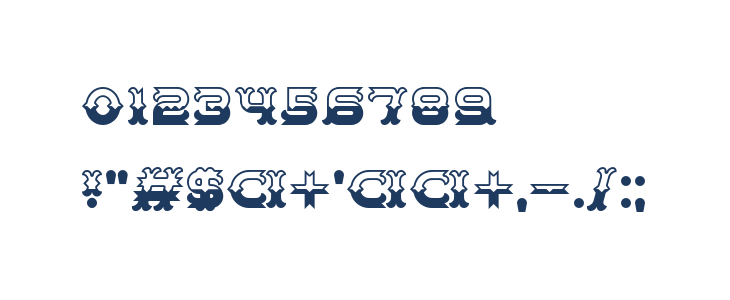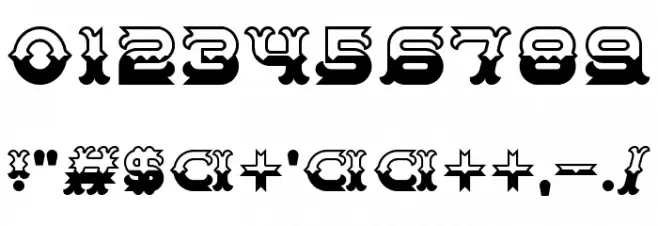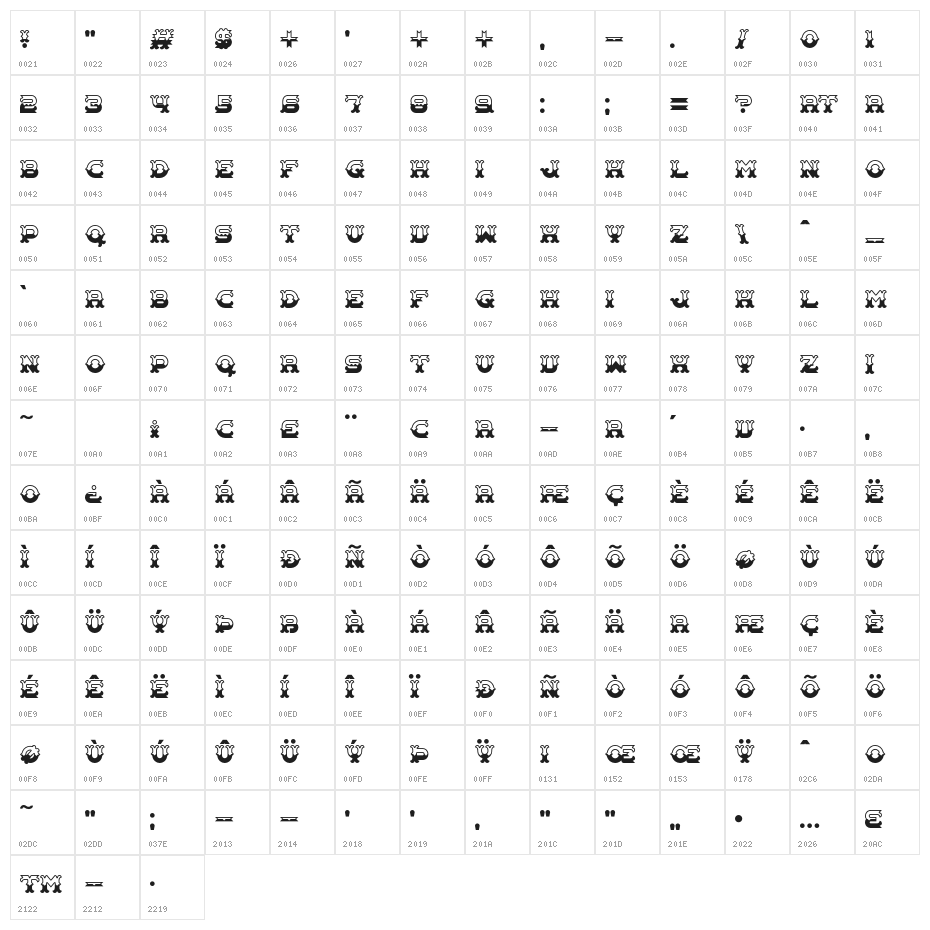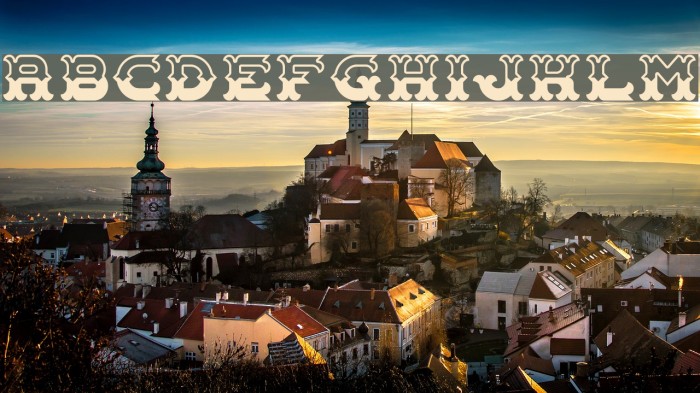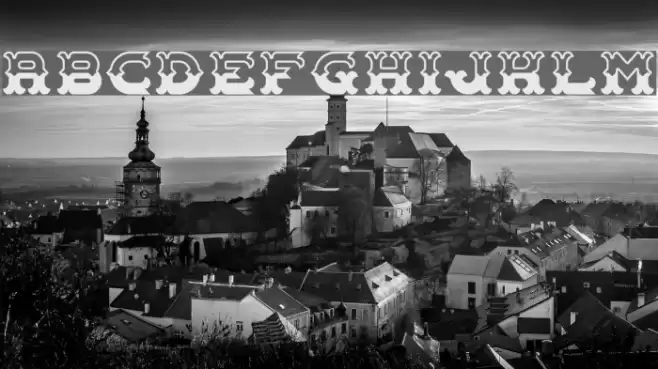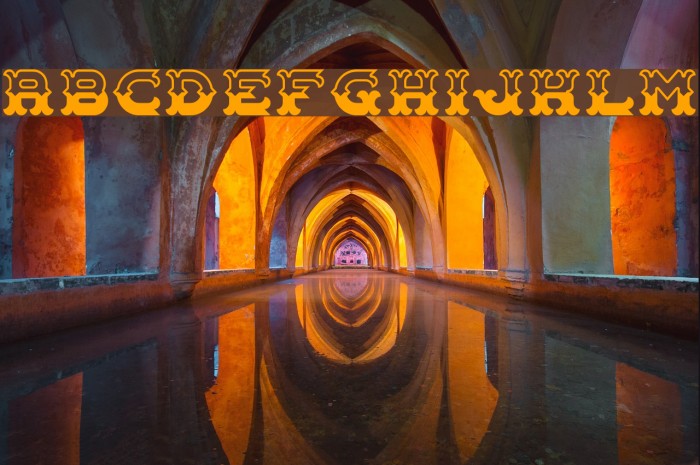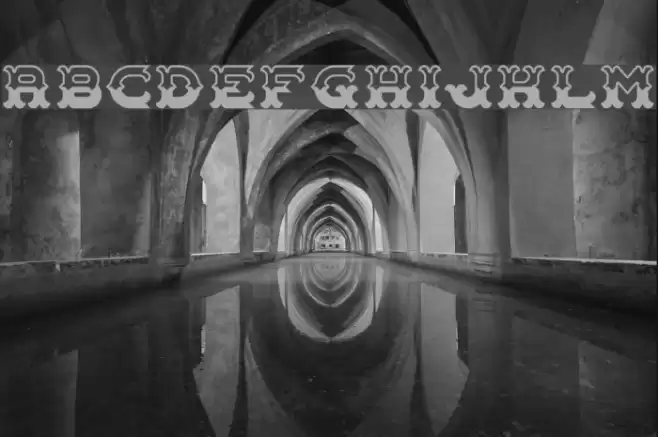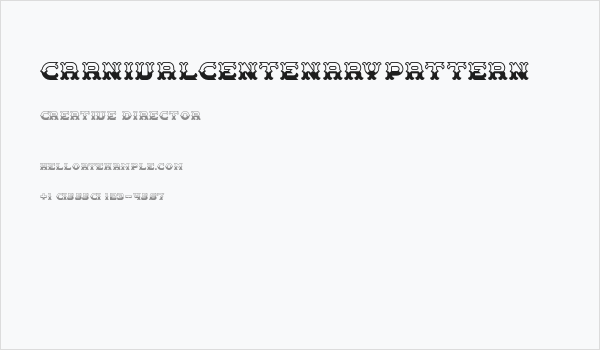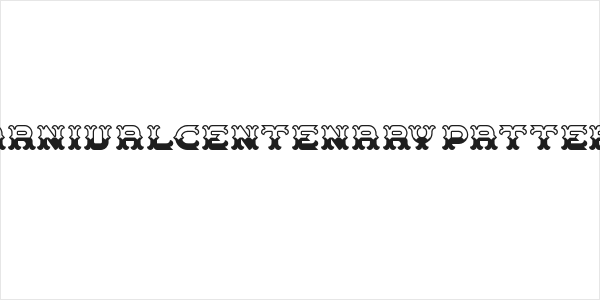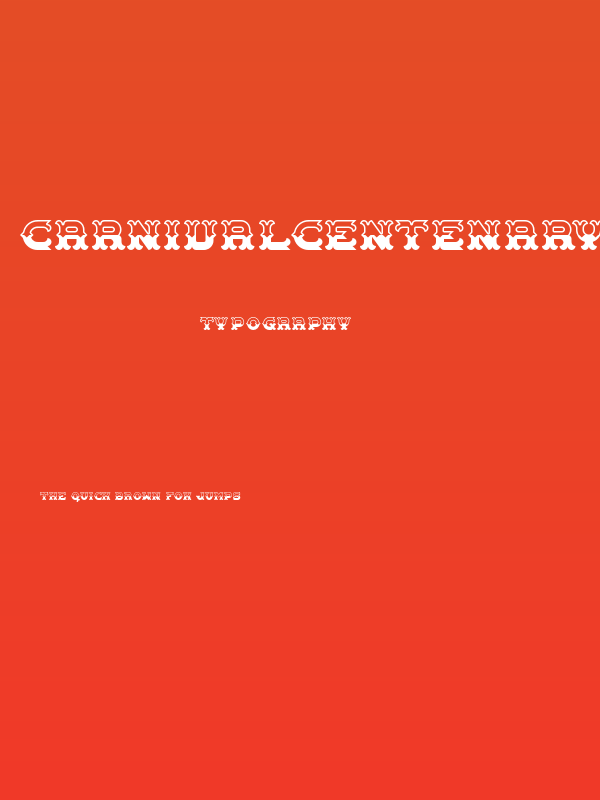
CarnivalCentenaryPattern Font
CarnivalCentenaryPattern Description
This font features a bold, decorative style with intricate patterns and a playful, festive appearance. The characters are designed with a unique blend of geometric shapes and ornamental details, creating a sense of movement and excitement. The bold strokes and high contrast between thick and thin lines give it a striking presence, making it ideal for attention-grabbing designs. The font's whimsical nature is reminiscent of carnival themes, with its elaborate and artistic flair. Each letter is crafted with precision, ensuring readability while maintaining its decorative essence.